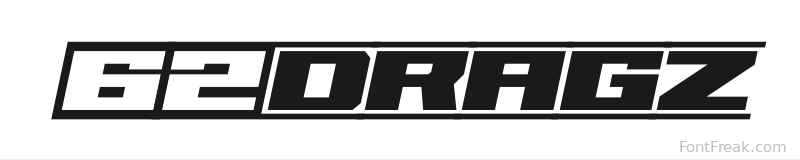
62DRAGZ
About 62DRAGZ
Introducing the 62DRAGZ font by Youssef Habchi, a dynamic display typeface that captures attention with its bold personality. This font is available as a freeware, making it an ideal choice for both personal and professional projects. As a display font, 62DRAGZ stands out with its unique character and energetic design, making it perfect for projects that require a touch of creativity and flair.
Visually, the 62DRAGZ font features a distinctive style characterized by its strong stroke weight and playful letterforms. The contrast between thick and thin elements contributes to its eye-catching appeal, while the spacing between letters is thoughtfully designed to enhance readability. The font is infused with decorative elements that add a modern twist, making it suitable for a variety of creative applications.
This font is particularly well-suited for a range of uses, including vibrant wedding invitations that seek to convey a sense of celebration, eye-catching movie posters that demand attention, trendy restaurant menus that reflect a contemporary ambiance, and captivating social media graphics that engage viewers. Its versatility makes it a valuable asset for graphic designers, small business owners, and content creators looking to elevate their visual communication.